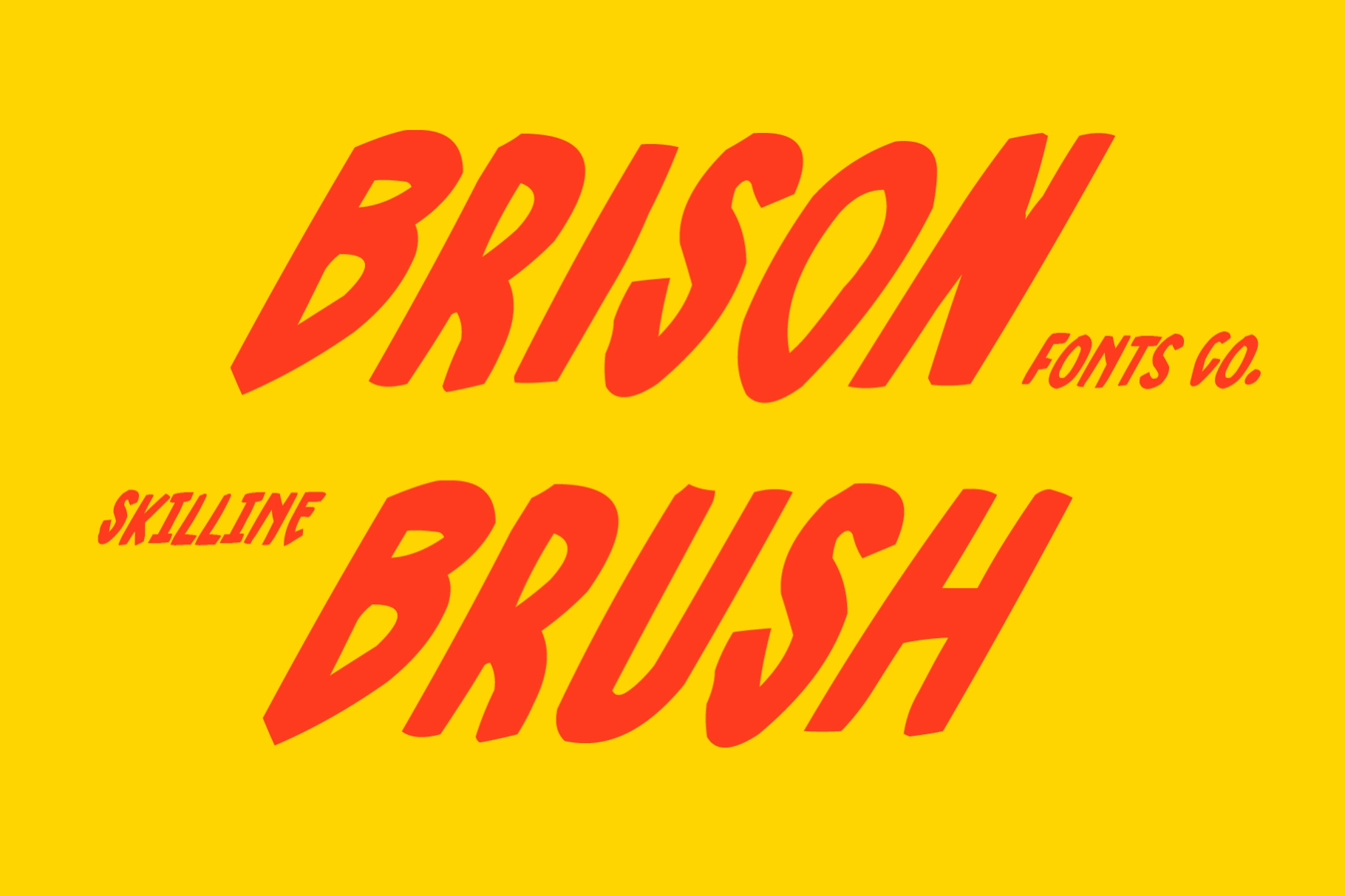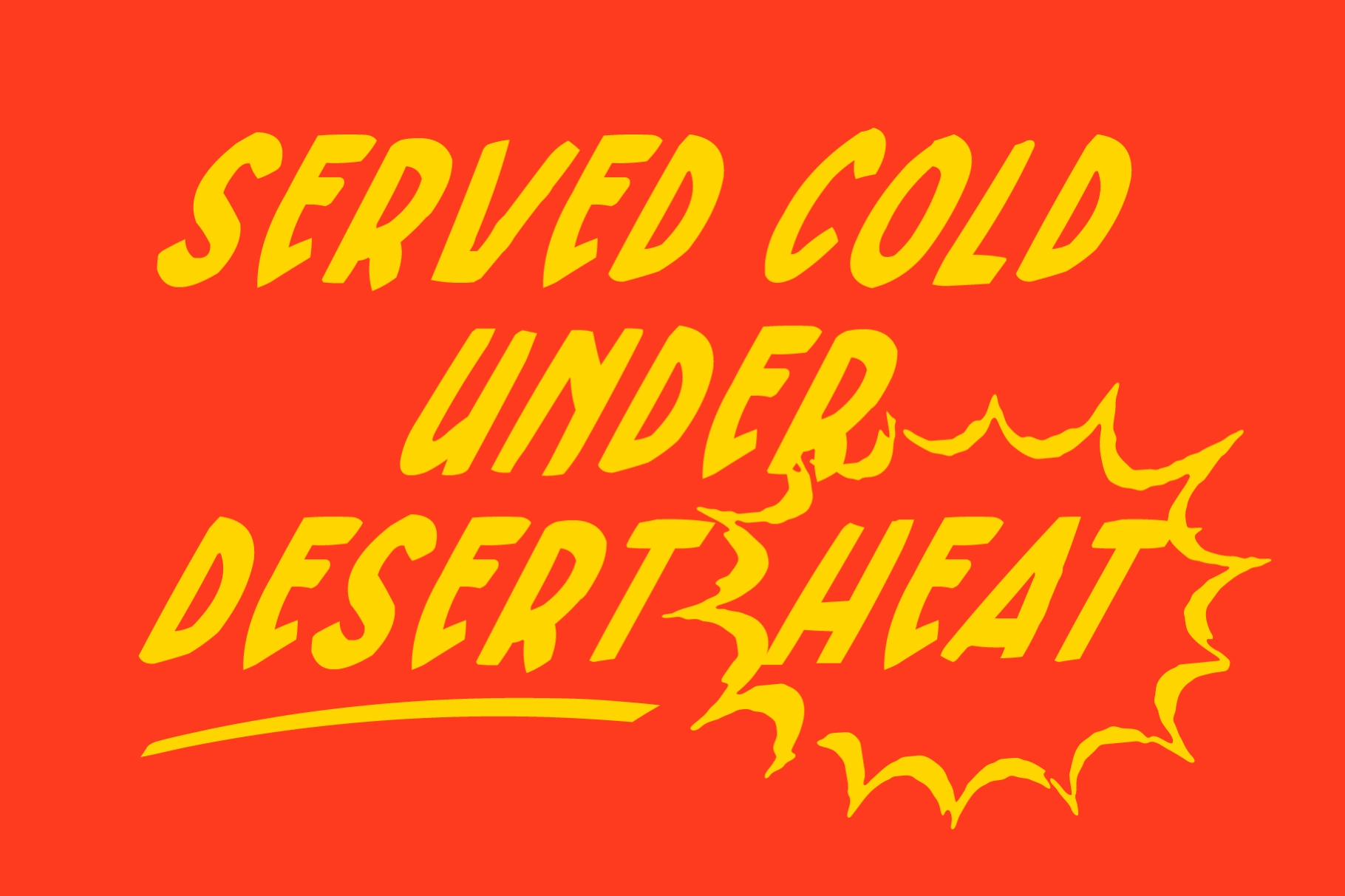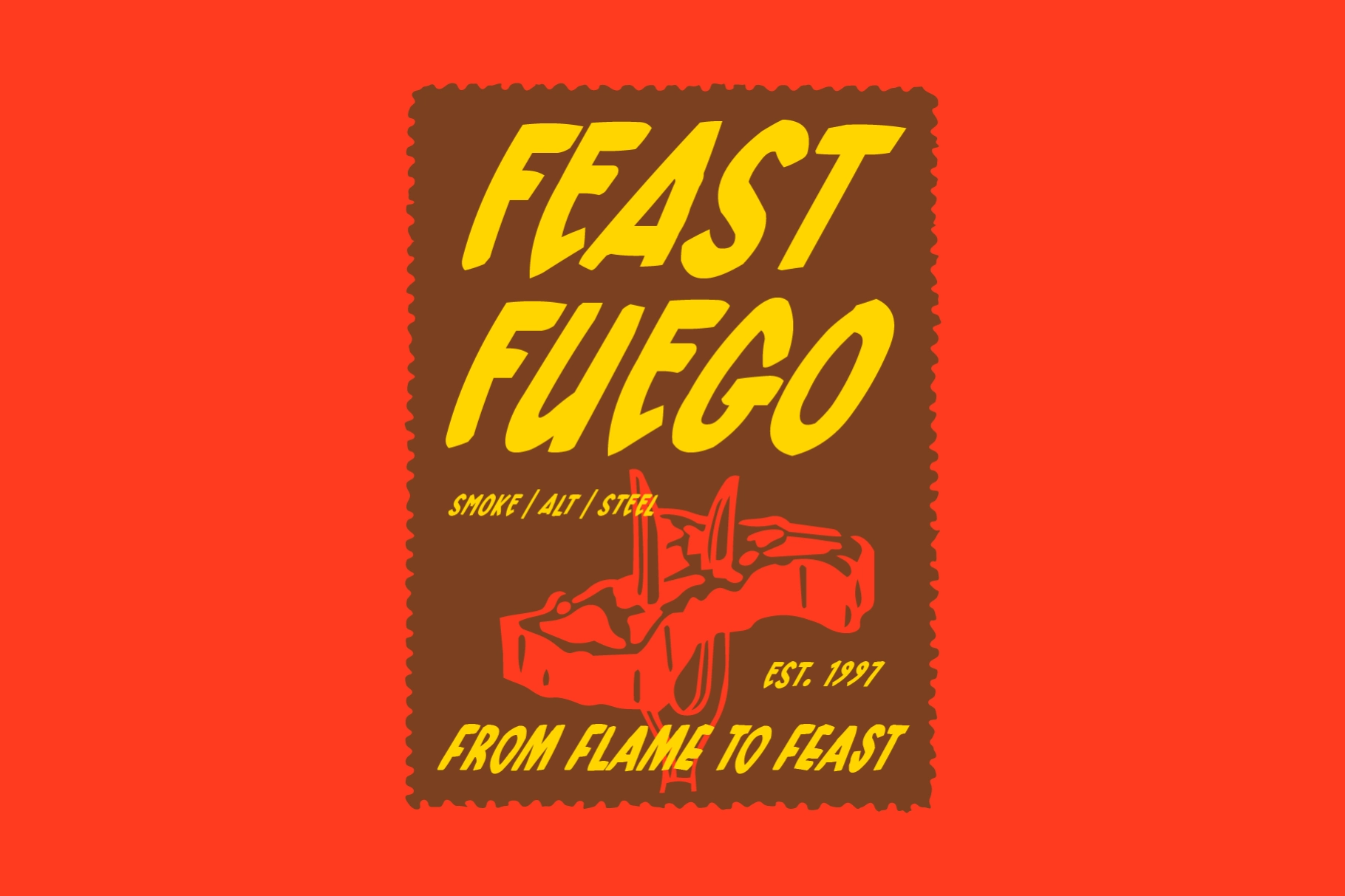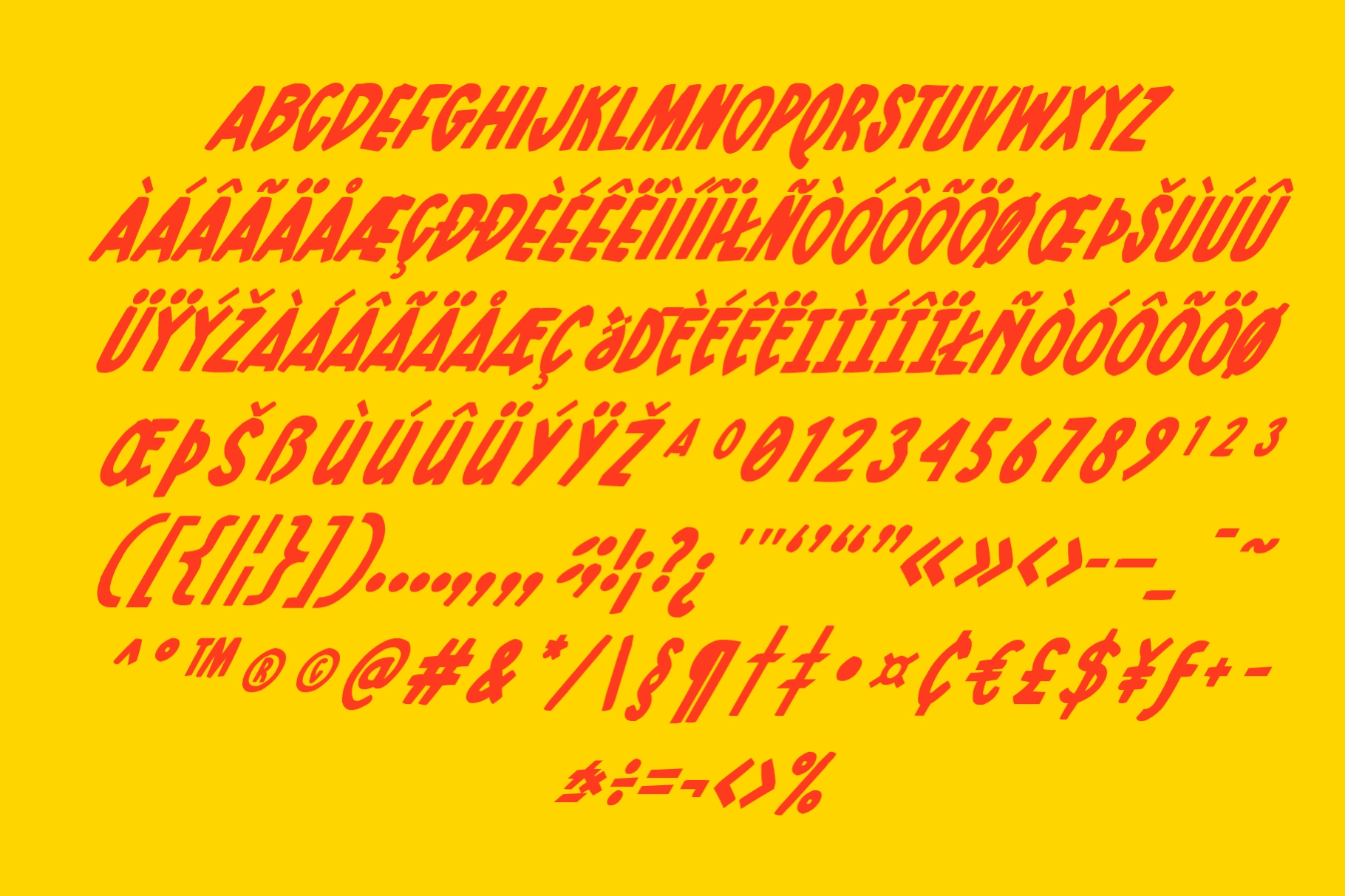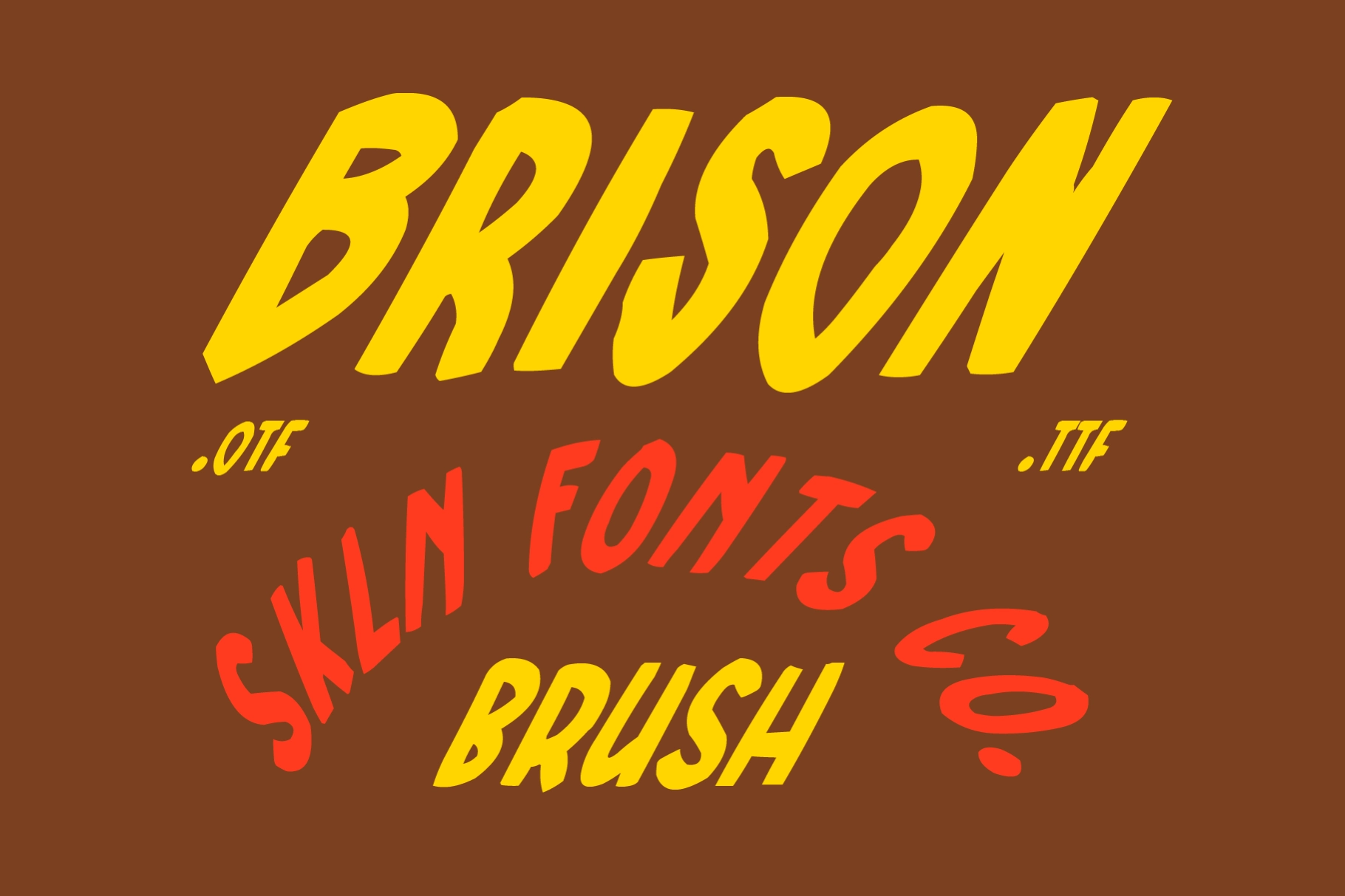
SFC Brison Brush - Vintage Display Font
This bold display typeface has slanted brush shapes, sharp cuts, and a rugged retro rhythm . Its handcrafted construction carries the grit of smokehouse signage, desert roadside graphics, ranch typography, western film posters, and vintage Americana packaging, with clear readability for loud commercial headlines.
Brison Brush is made for barbecue branding, hot sauce labels, western posters, diner menus, food truck graphics, brewery packaging, rodeo flyers, T-shirt designs, sticker packs, album covers, motorcycle merch, sports graphics, product labels, and more. The multilingual character set, numerals, and punctuation make it practical for punchy logos, bold packaging systems, and display work with a little dust on its boots.
• Handcrafted Display Typeface
• Western Inspired Style
• Numerals & Punctuation